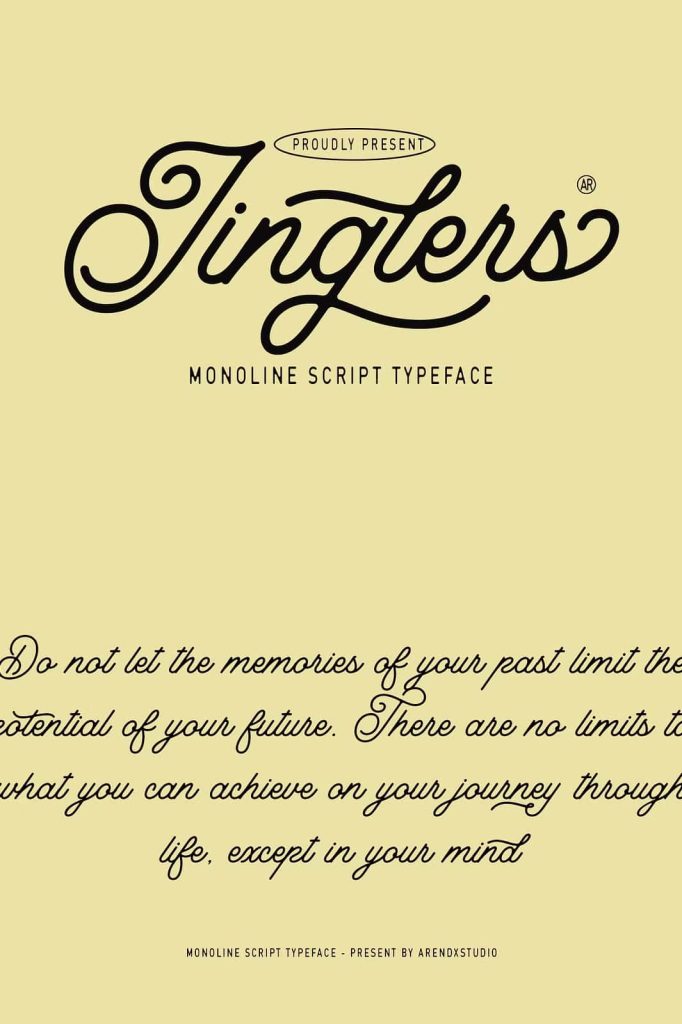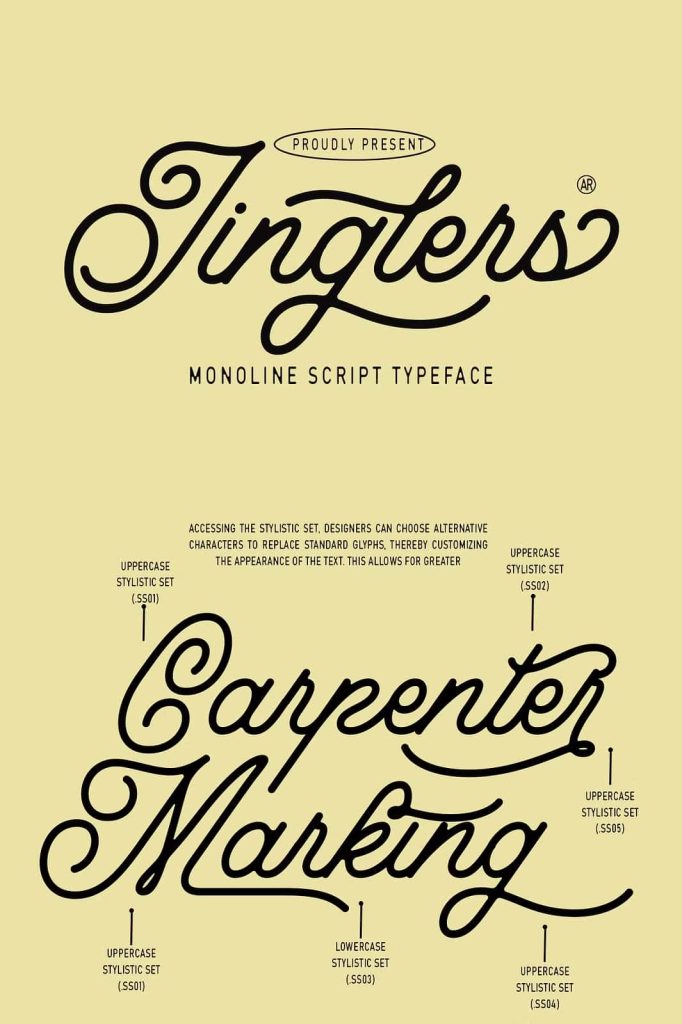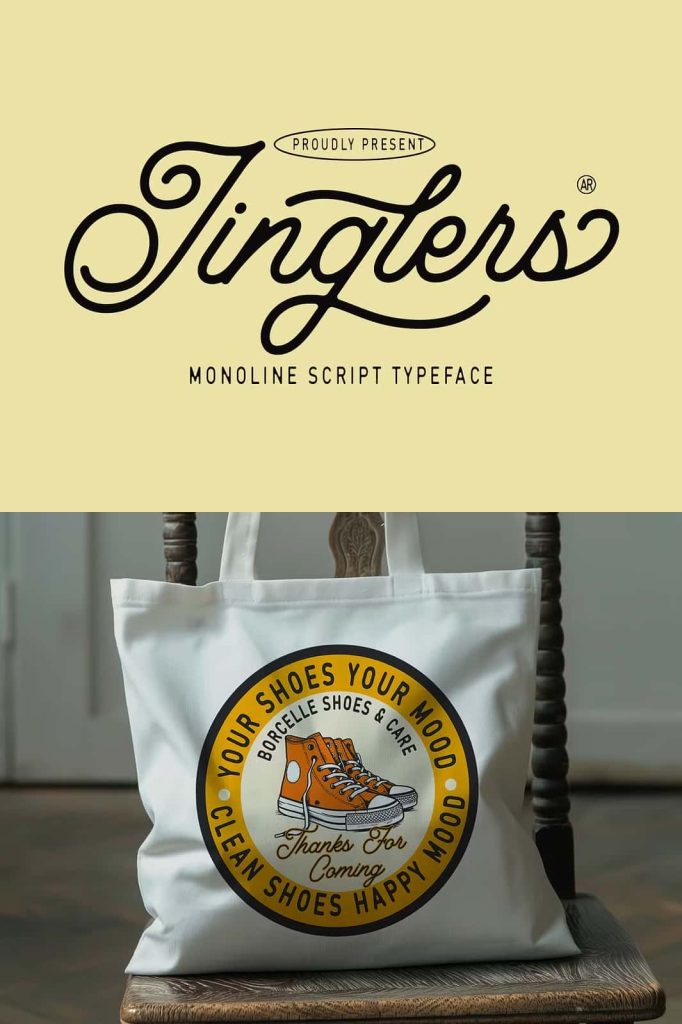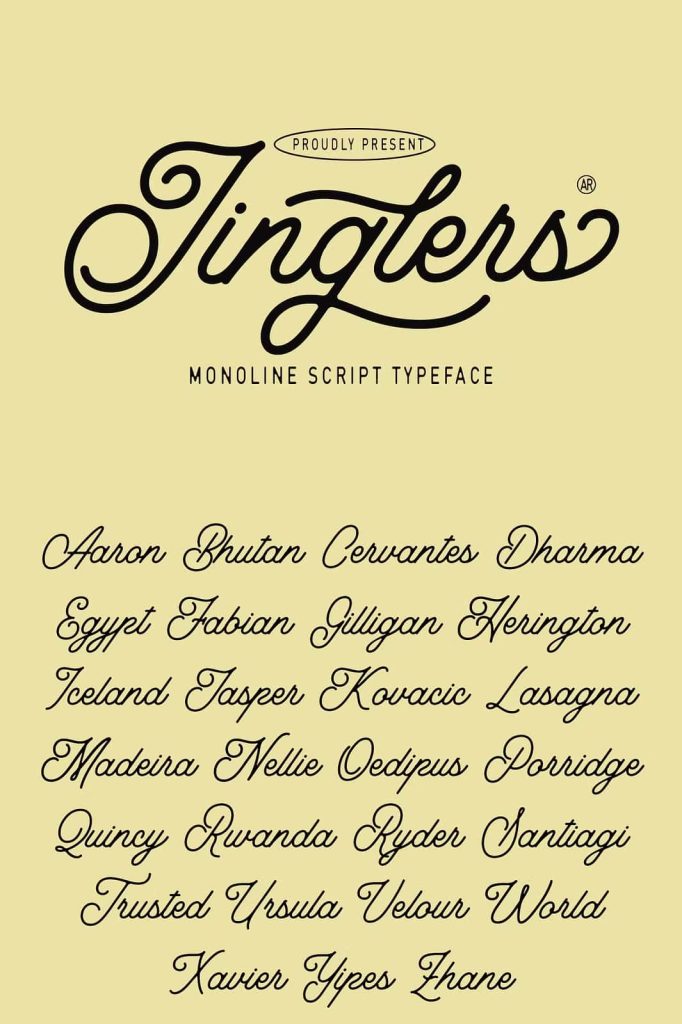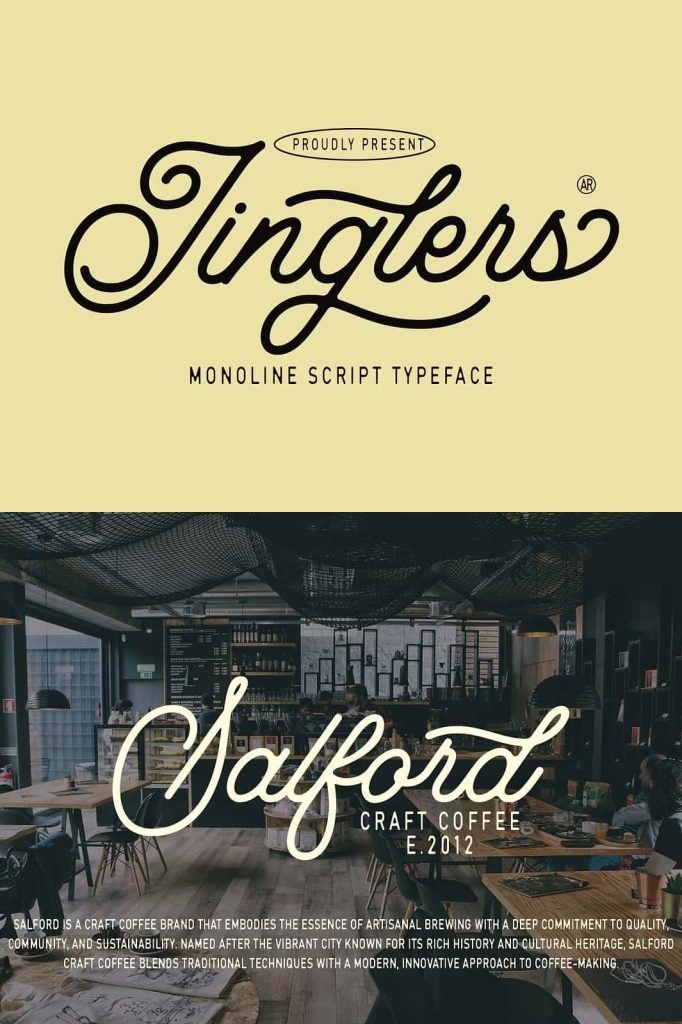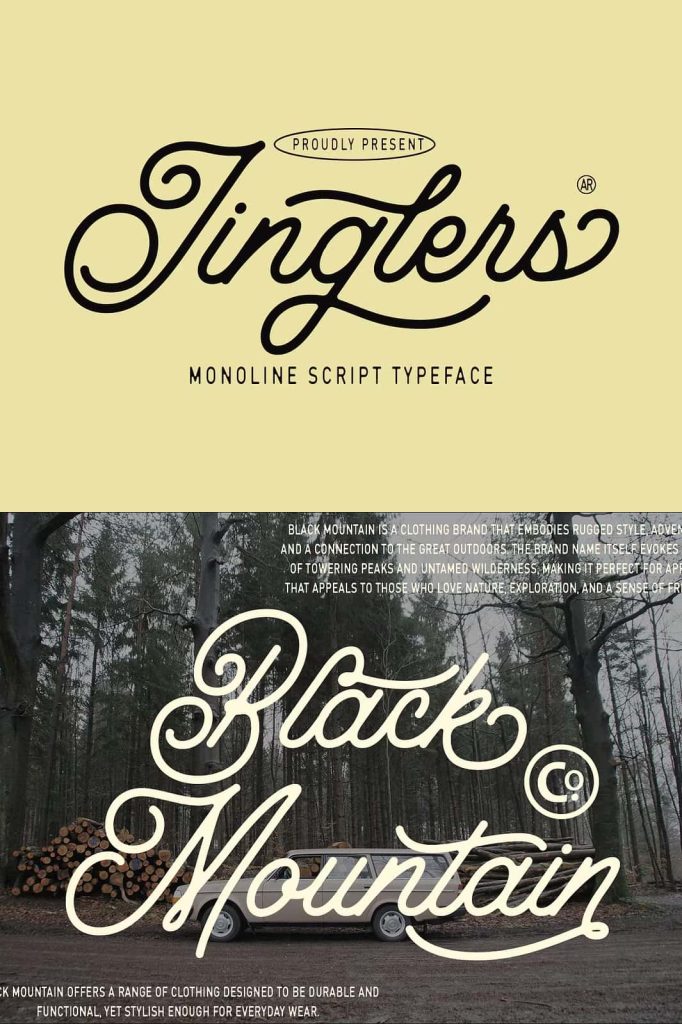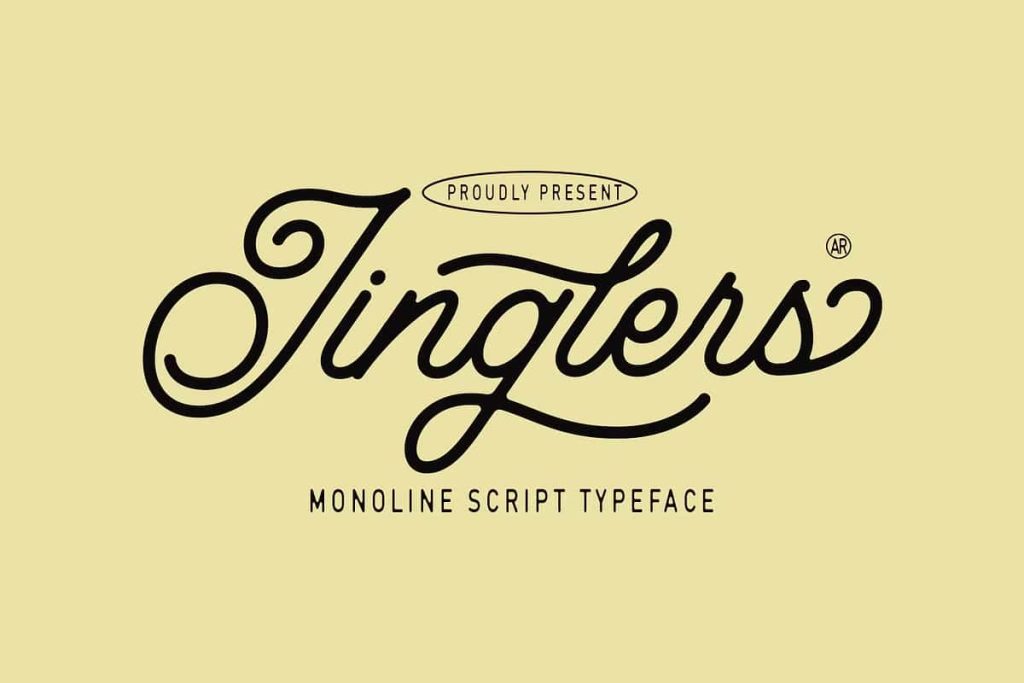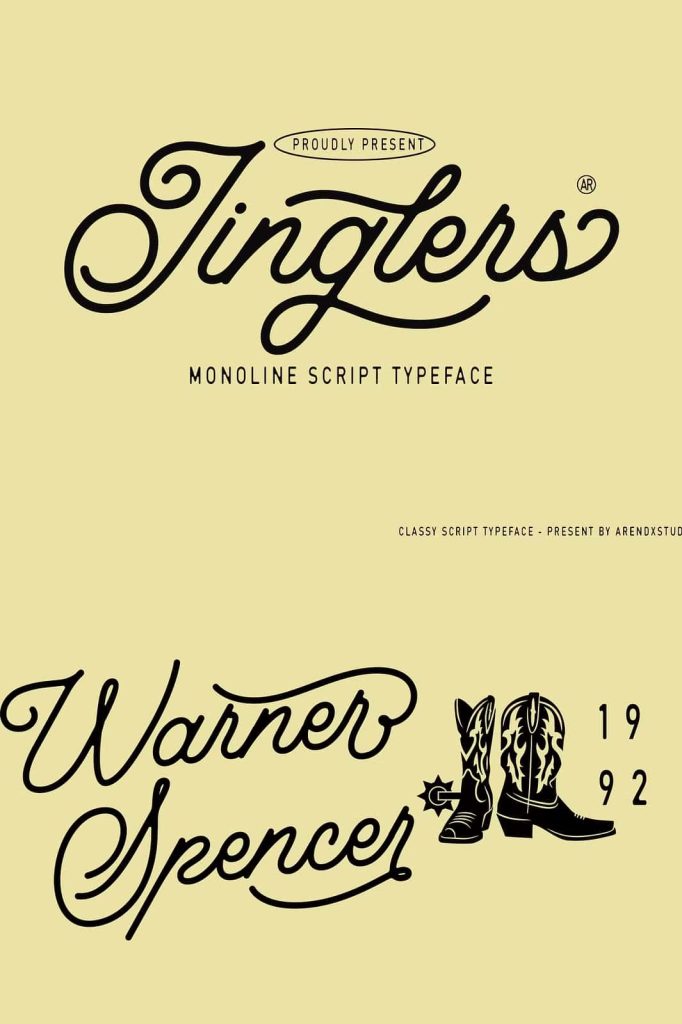
Jinglers is a sophisticated Monoline Vintage Script Font that elegantly merges the nostalgia of the past with the clarity and precision of modern design. Characterized by its continuous, unbroken line style, Jinglers delivers a seamless flow across each letter, creating a smooth and polished appearance. This font is crafted to evoke a sense of timeless elegance, making it an ideal choice for projects that require a vintage yet contemporary touch.